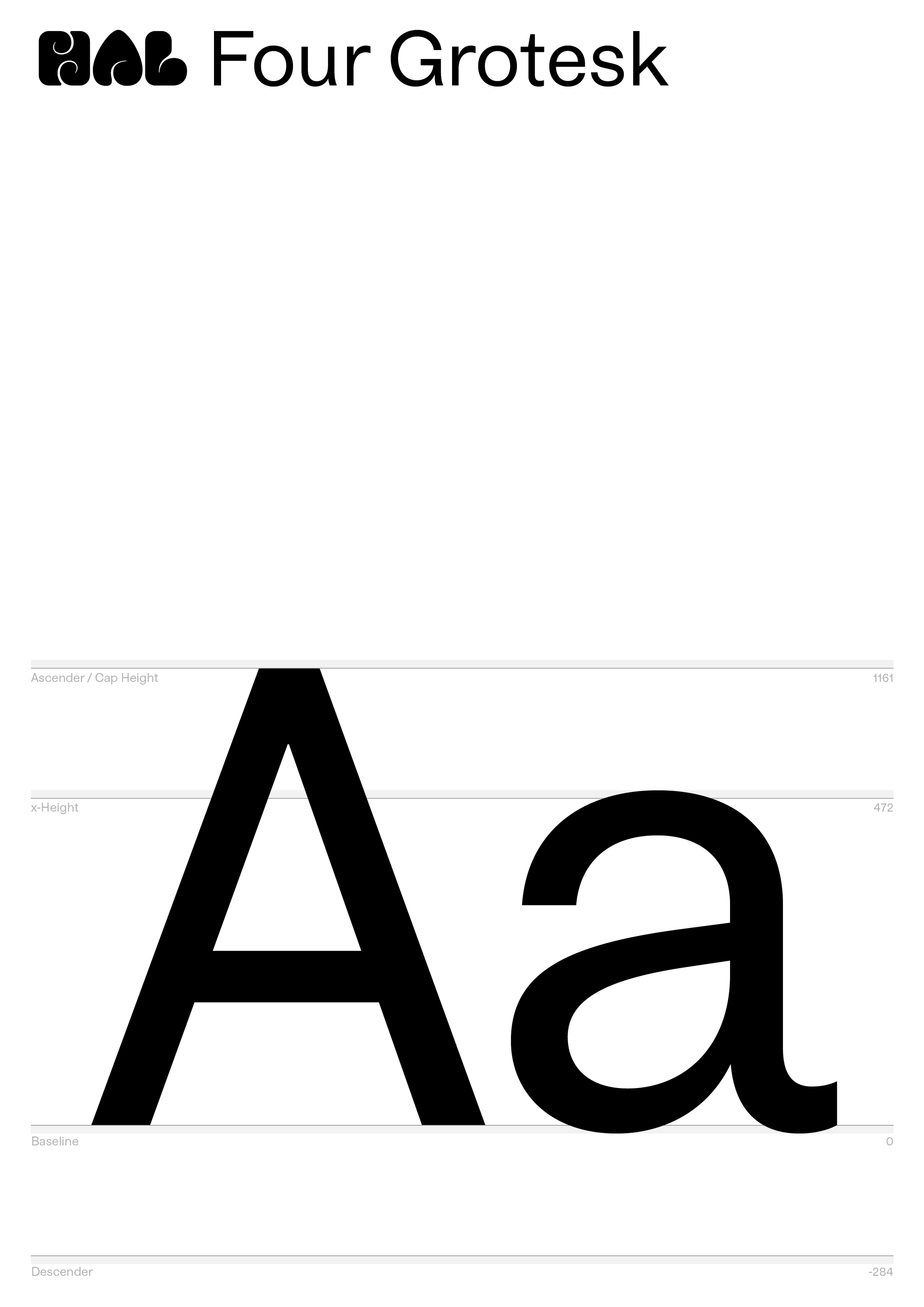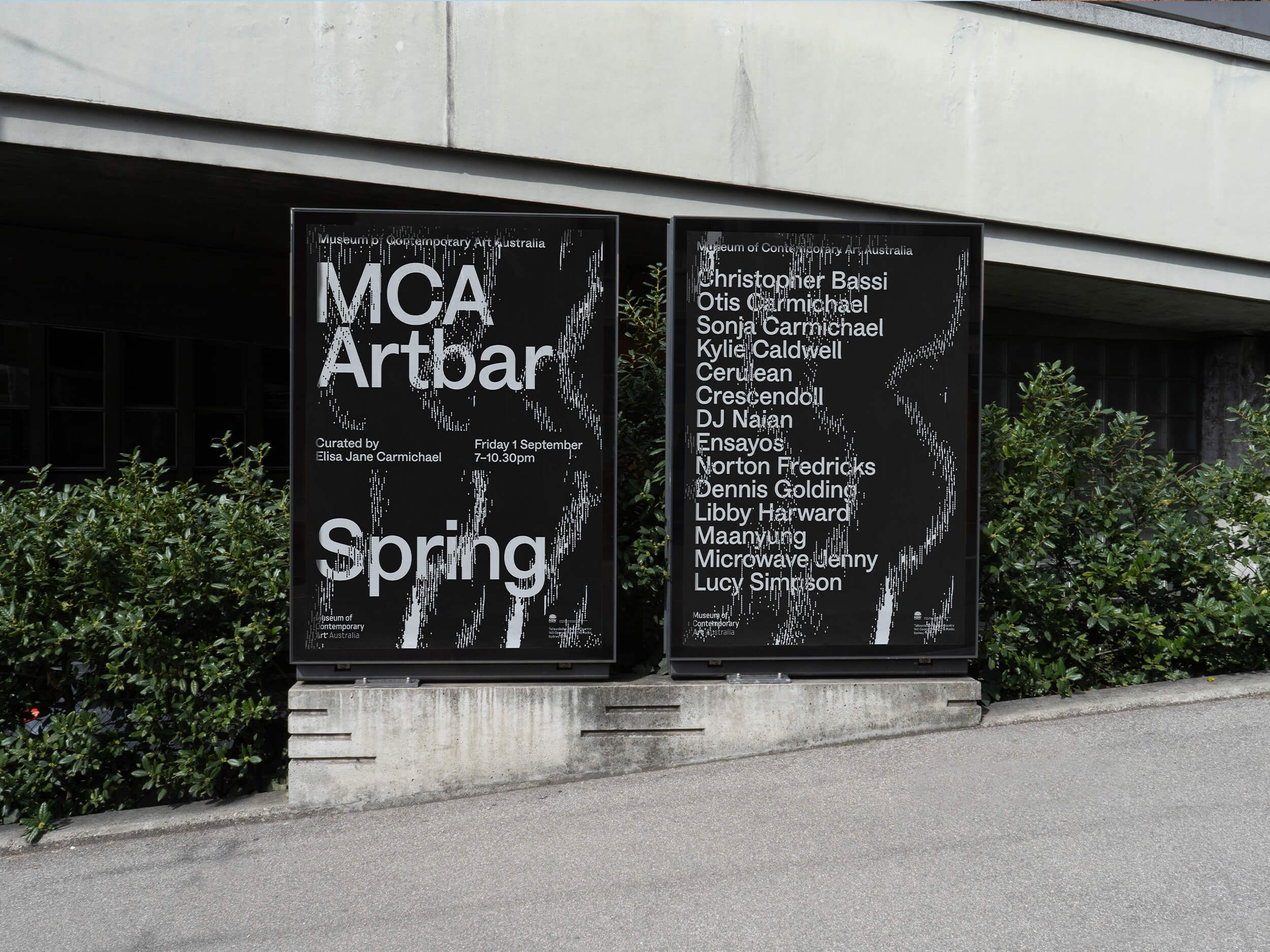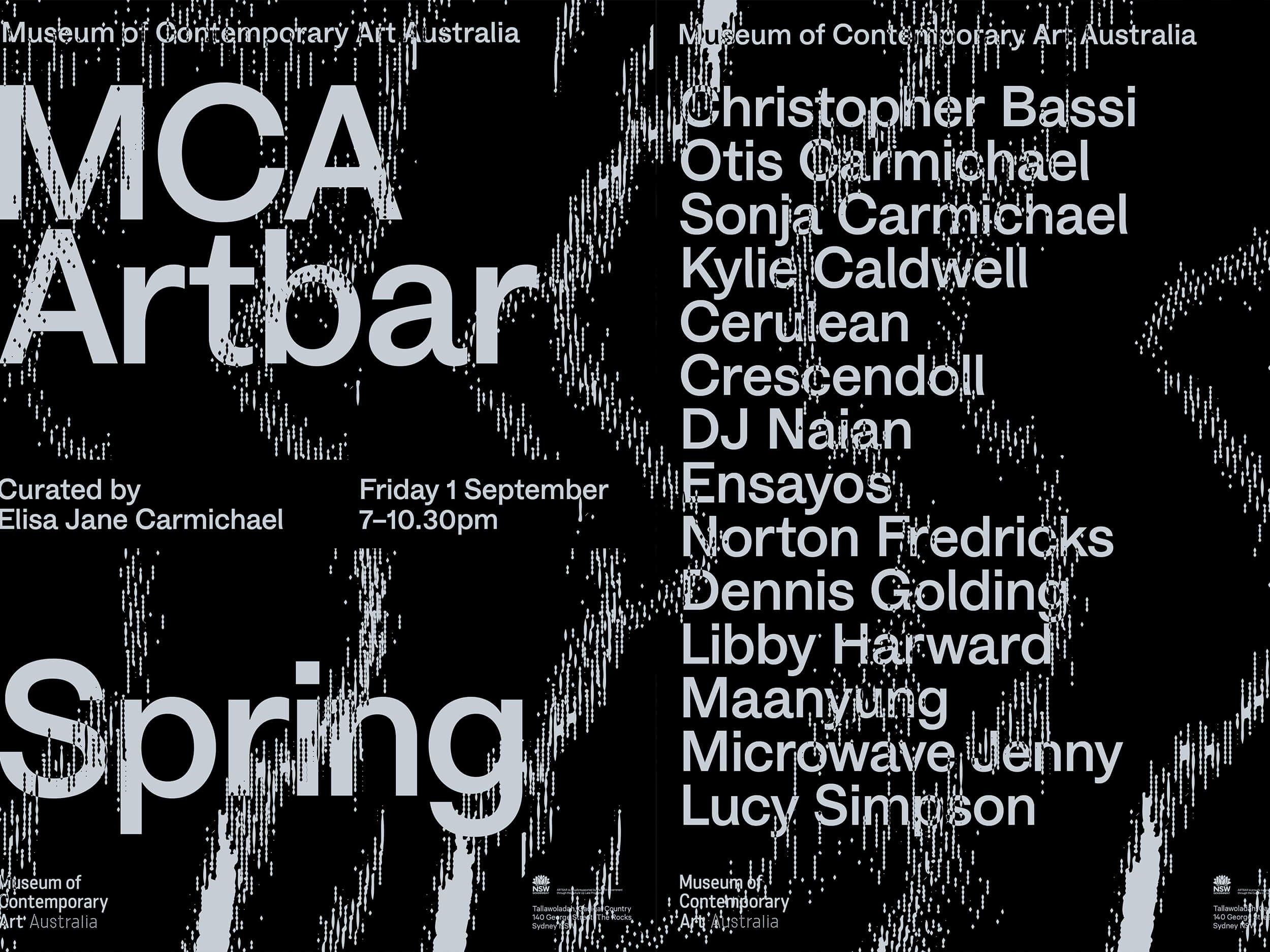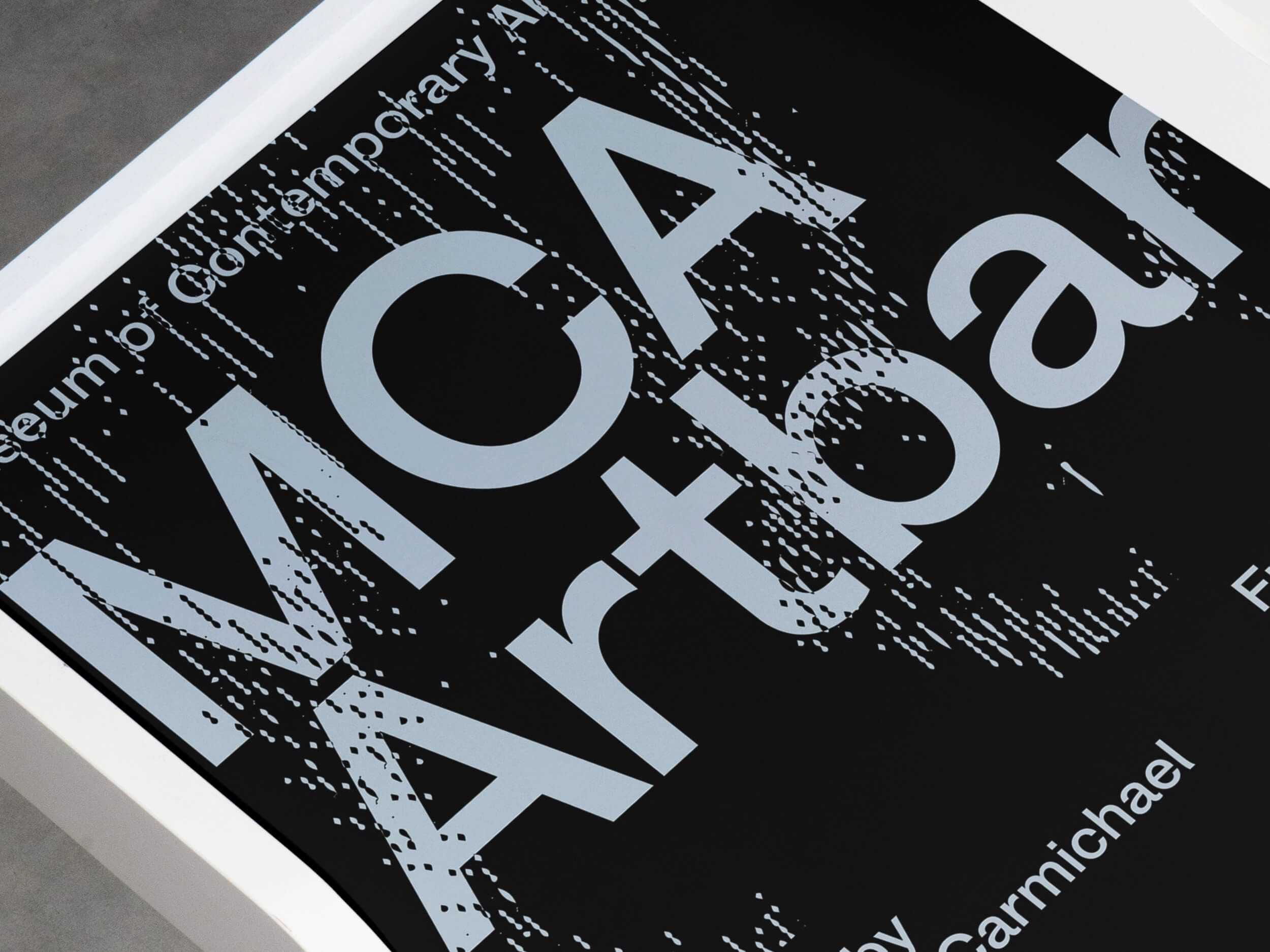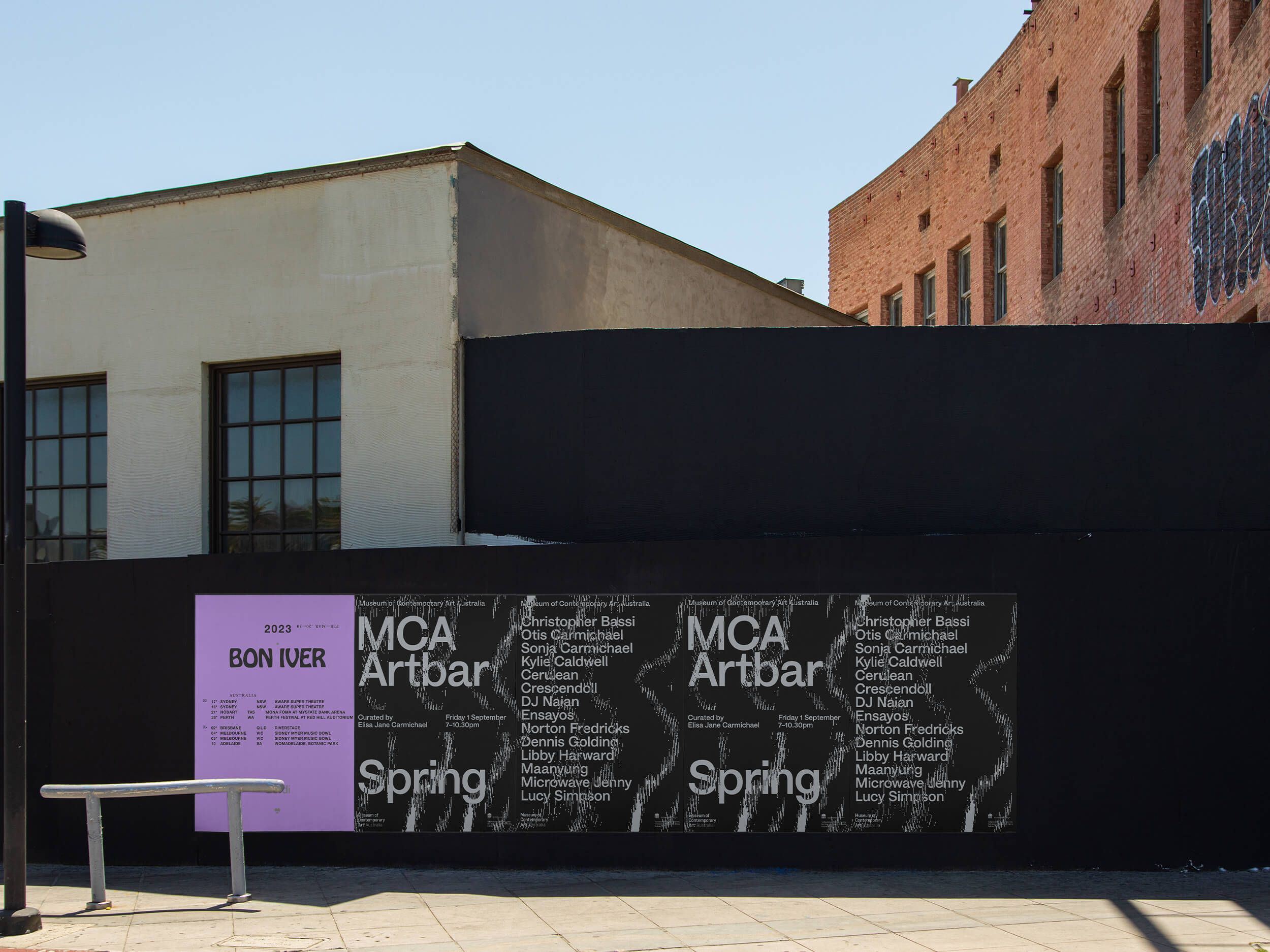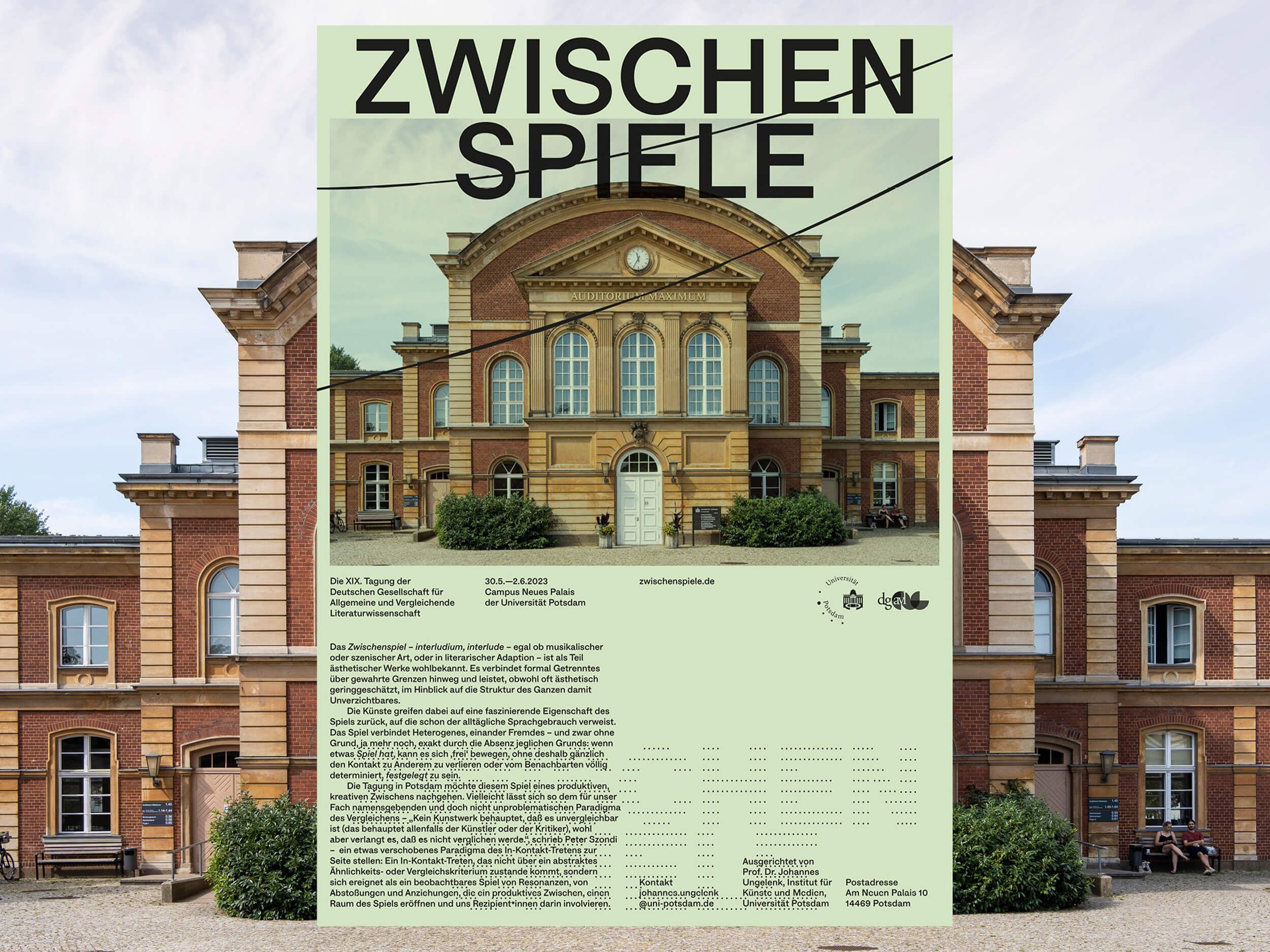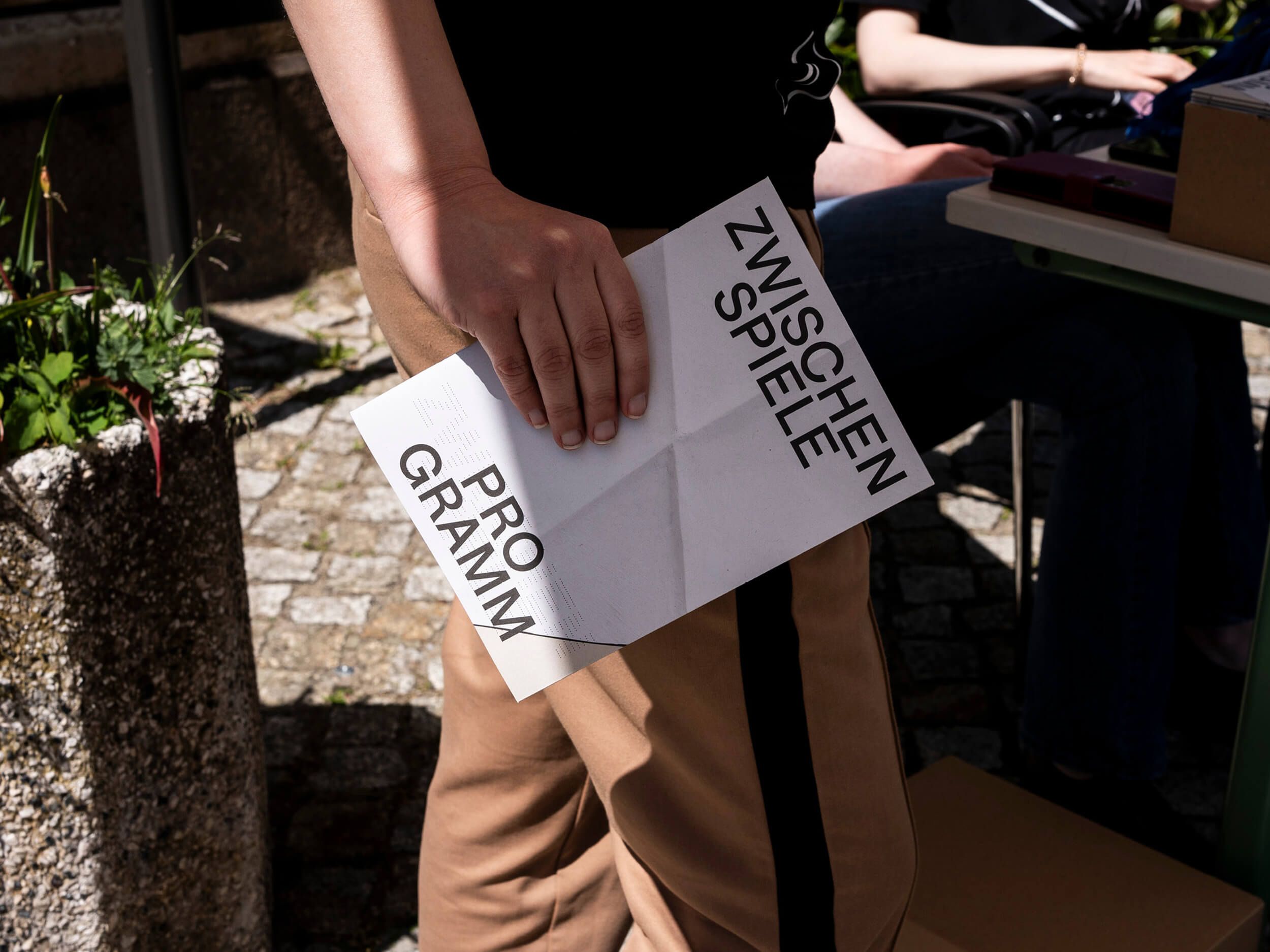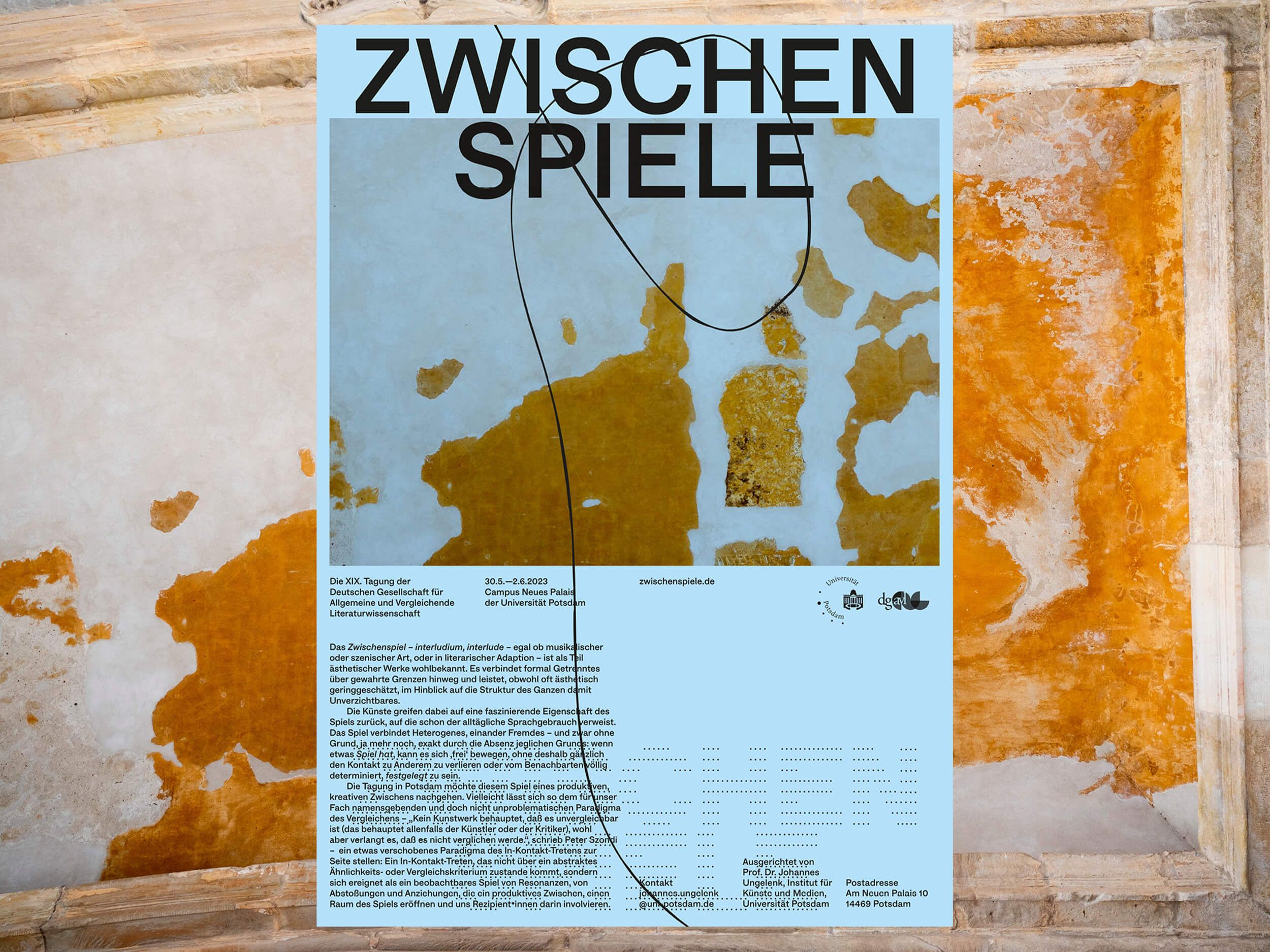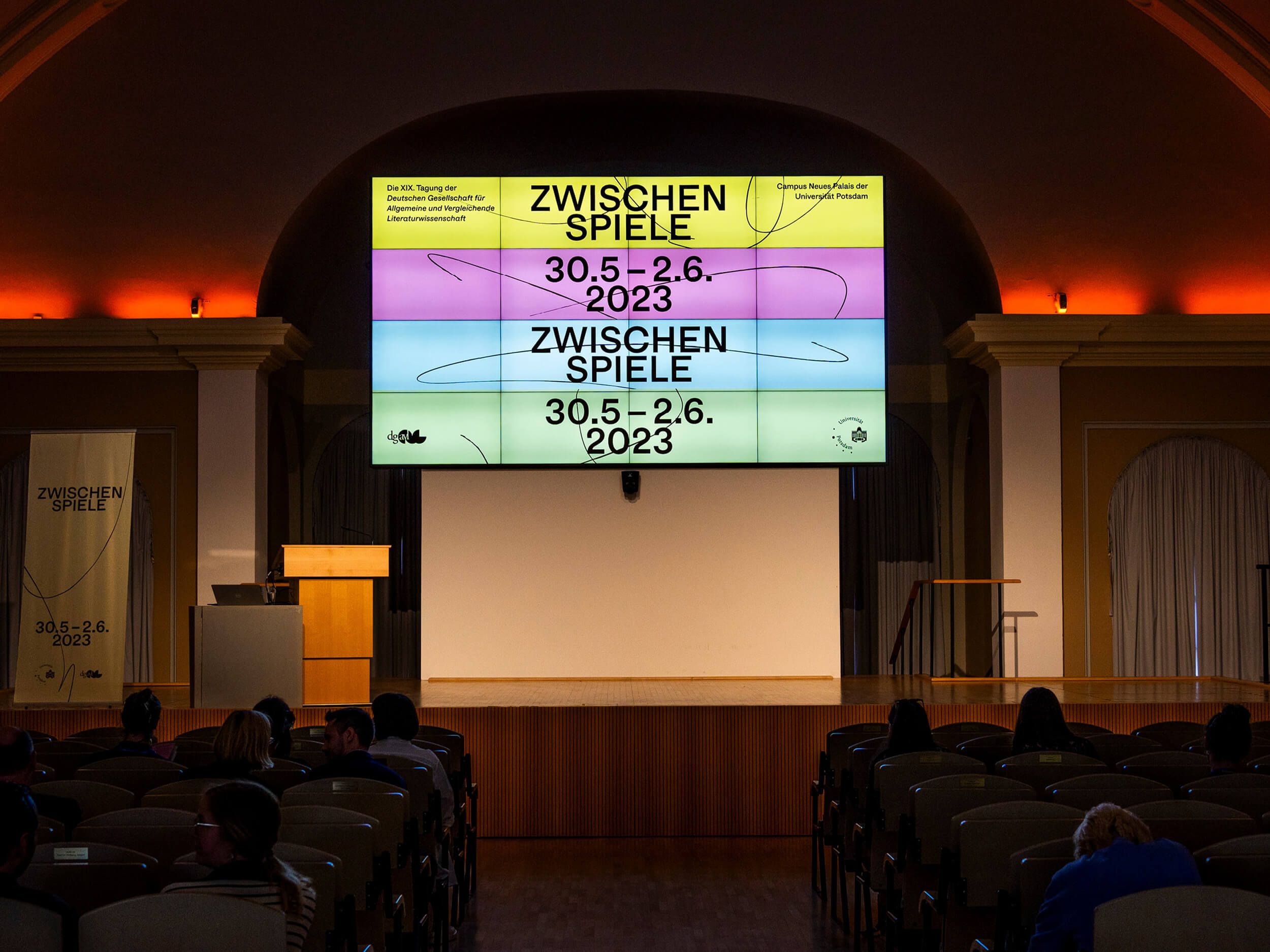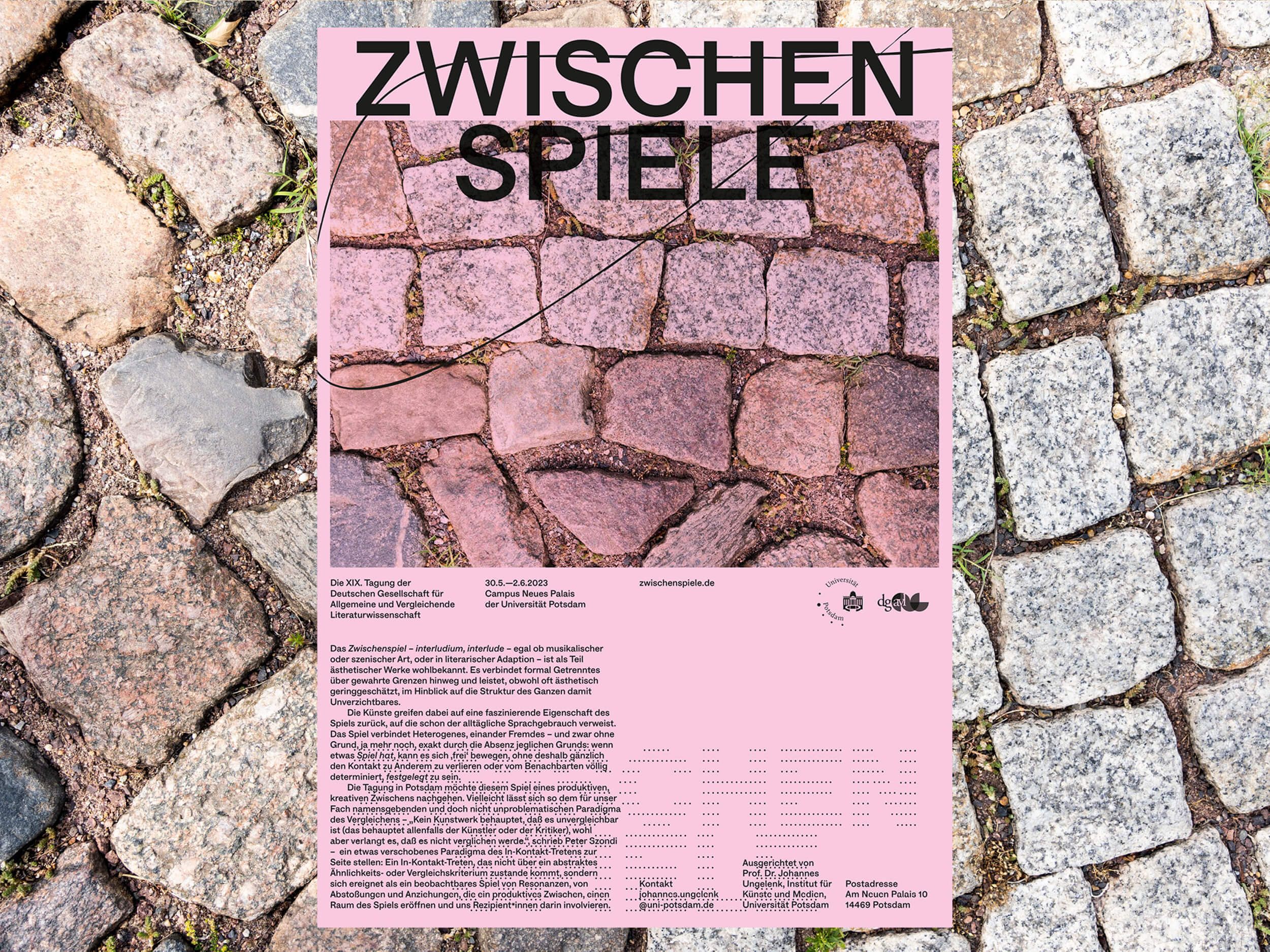
HAL Four Grotesk is an elegant yet reliable addition to the vast, undying sans-serif genre, inspired by Keystone Type Foundry’s Empire Gothic from 1912. This boldly authentic, italicised style from a century ago laid the foundation for further developing HAL Four into a versatile, all-purpose neo-grotesque. Four’s overall appearance is bound by neutral and friendly shapes whilst simultaneously embodying an individual personality to stand out in the crowd.